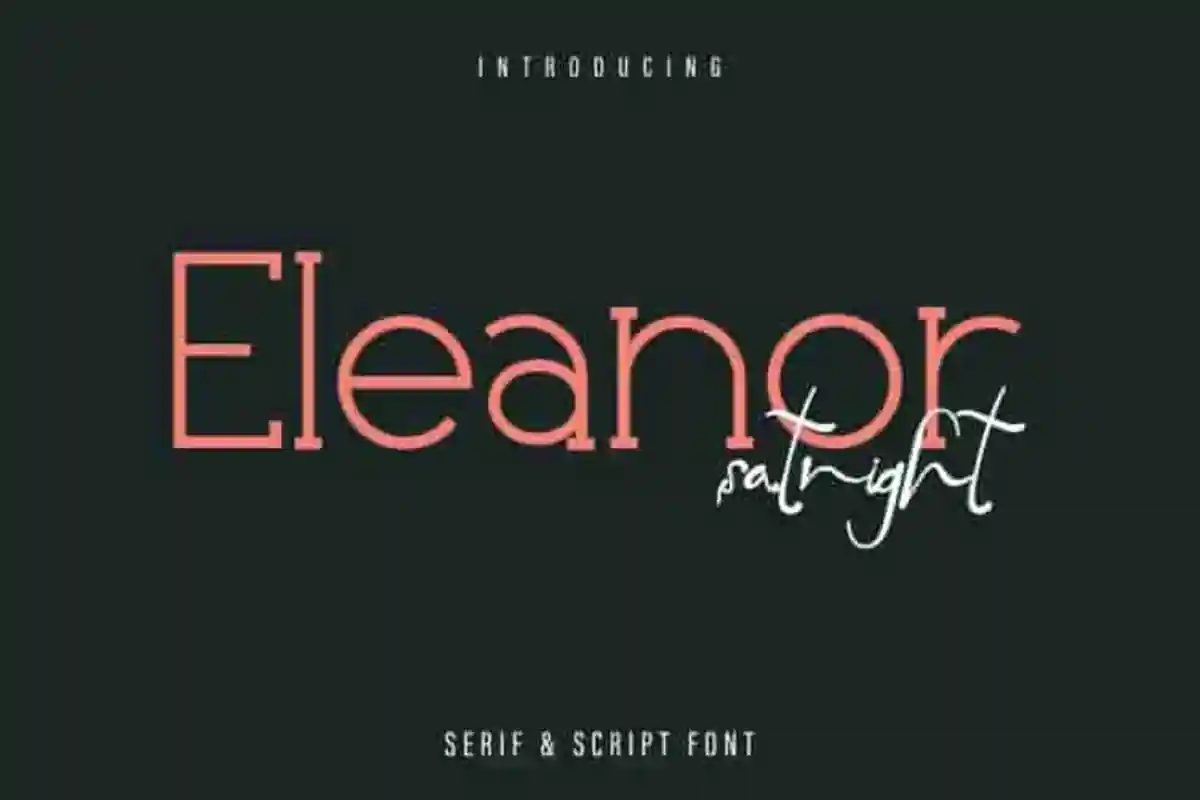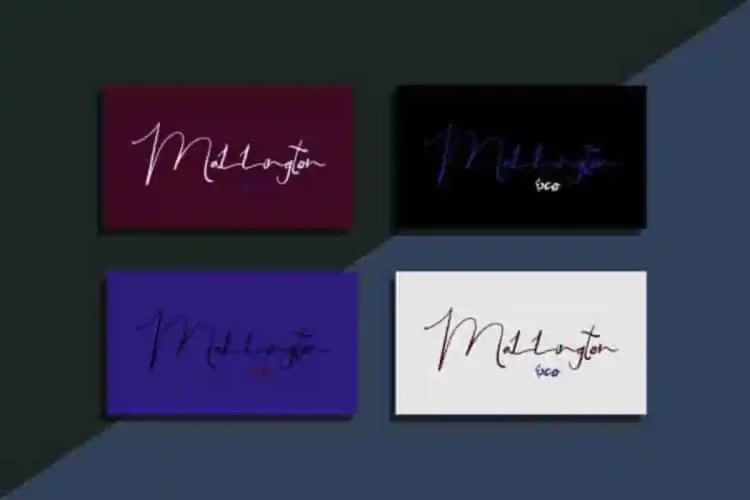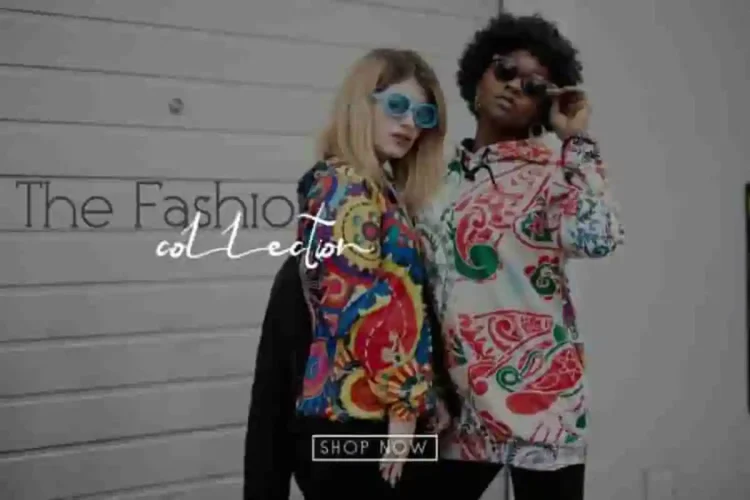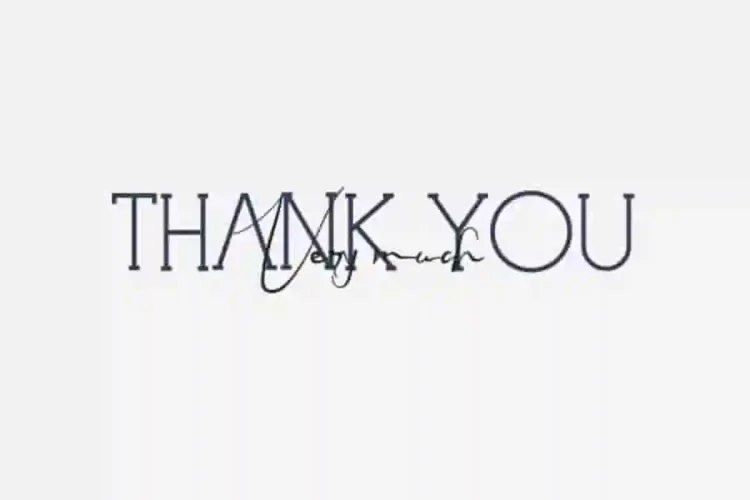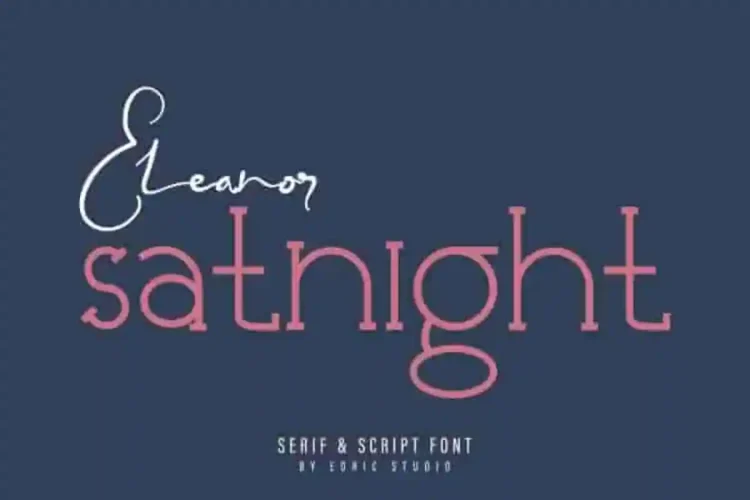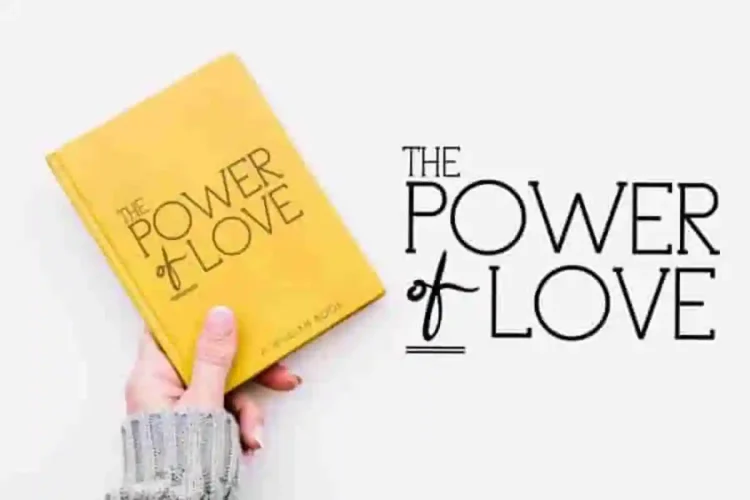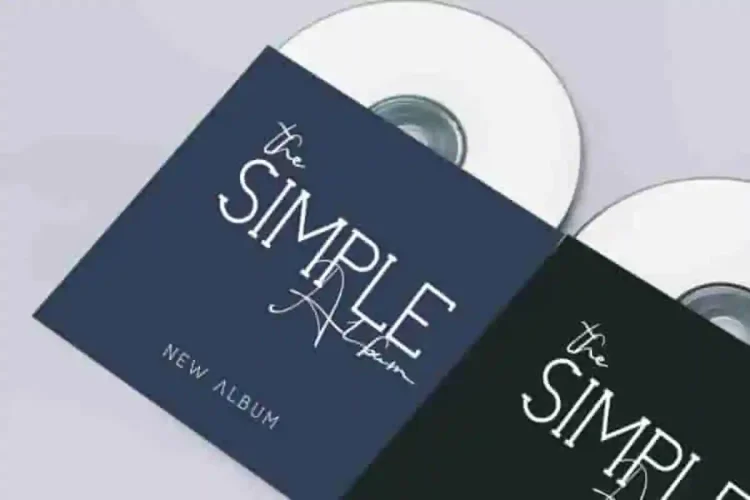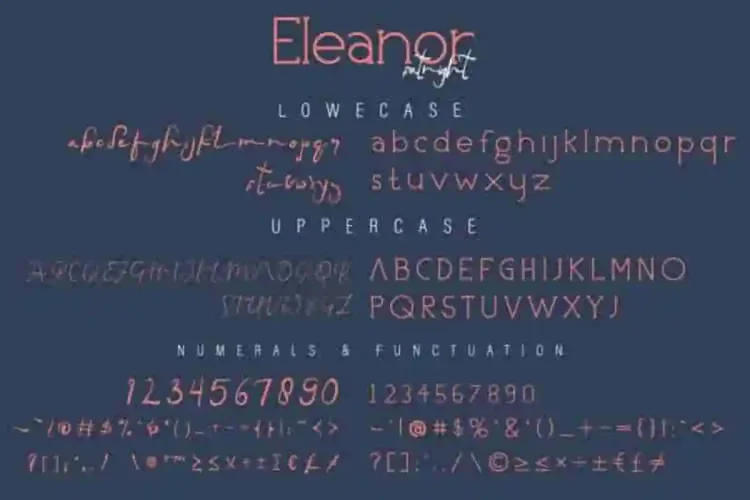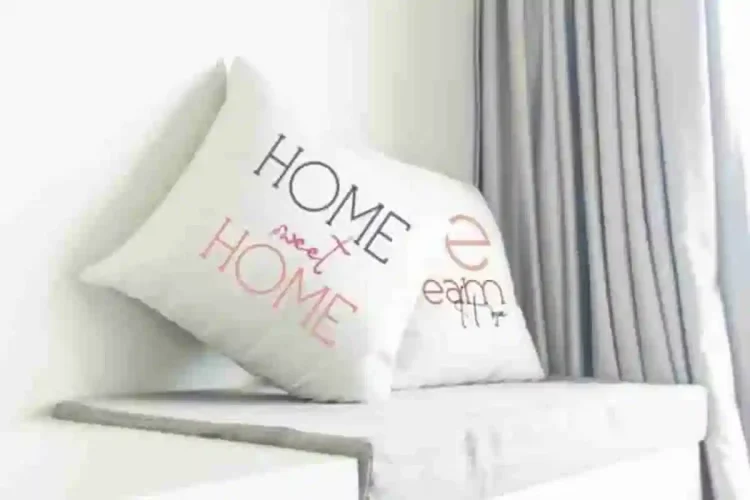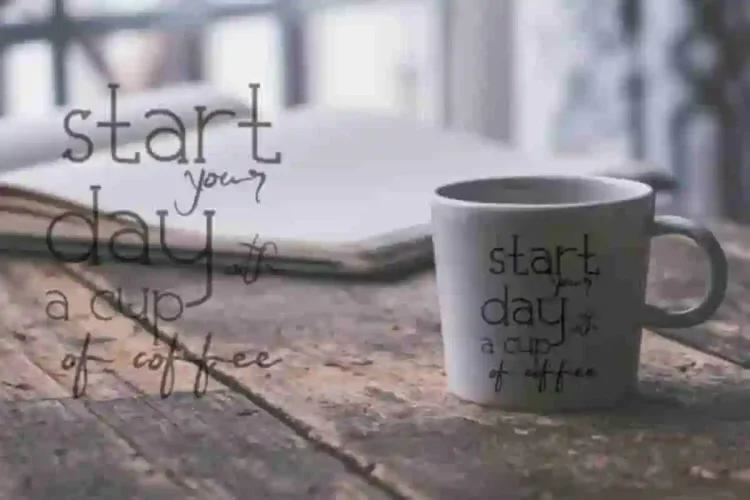
Eleanor Satnight Calligraphy Font Duo
Please welcome! Eleanor Satnight Calligraphy Font Duo
This is the newest font from Three of our lovely artists : Saila, Deyanand Suci. This is a duo typeface,  handcrafted from our Studio. Situated here in Garut and Bandung, Indonesia. Made with love and passion. :)
Eleanor Satnight Calligraphy Font Duo is an exclusive duo typeface with unique and elegant style. The typeface has a stunning characters set, perfectly kerned and spaced. The style character of this font is elegant, stylish, sophisticated and classic brush signature style. It’s exclusive you wont find any where-else, the font like Eleanor Satnight Calligraphy Font.
Eleanor Satnight Calligraphy Font Duo will be great for any projects including : branding, logo, stationery, business card, signage, flyer, brochure etc. Almost all industries will be match for this typeface: wedding, events, real estate, architect, law firm, florist, gardening, makeup artist, travel, hotel, musician etc.